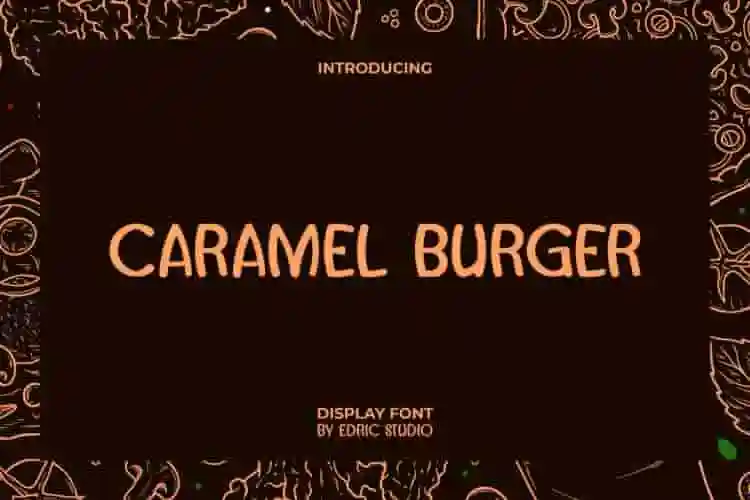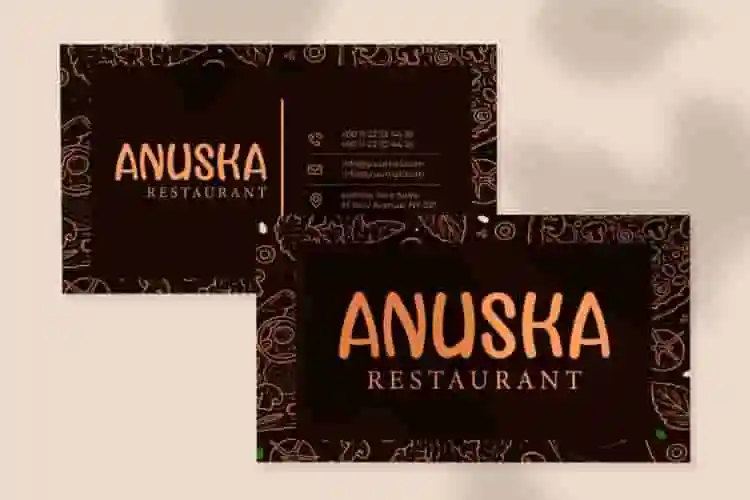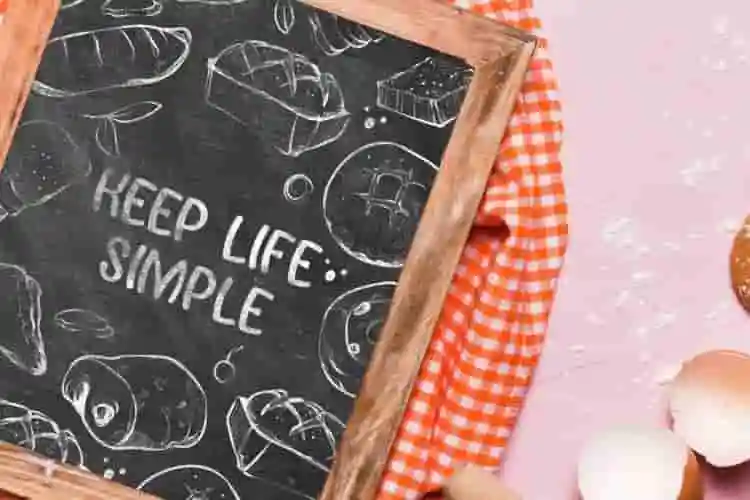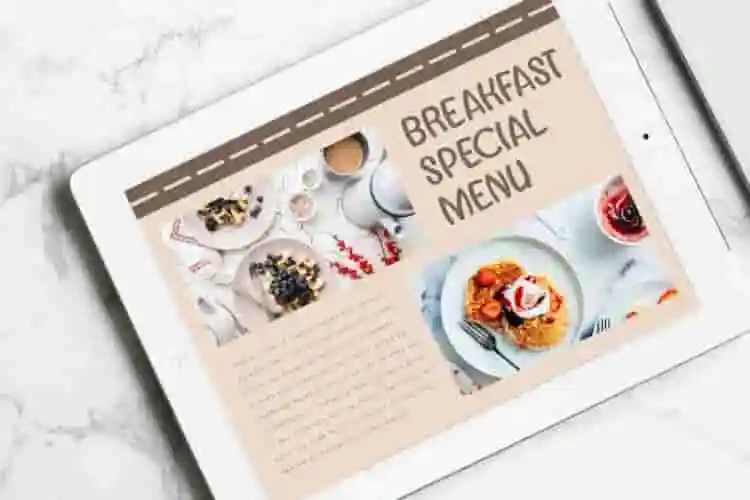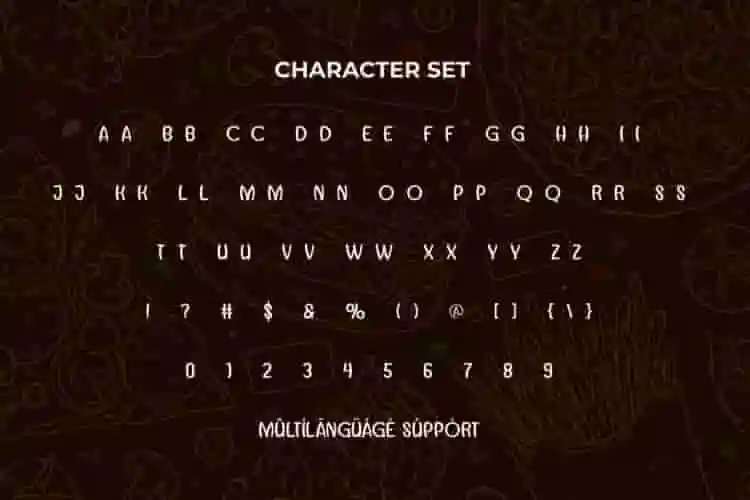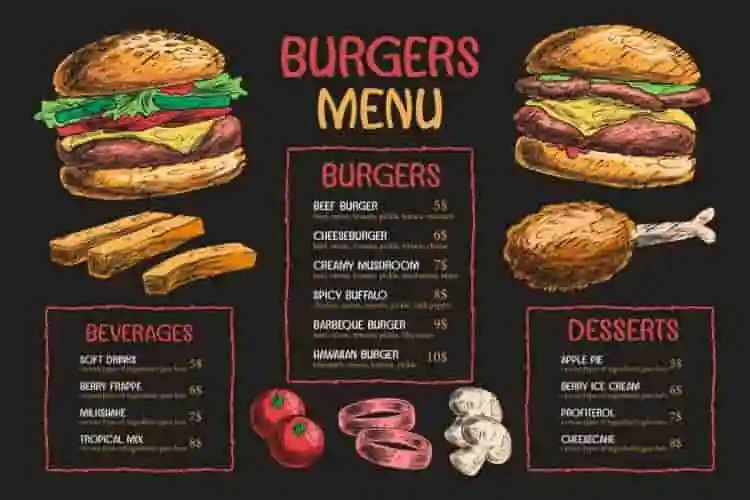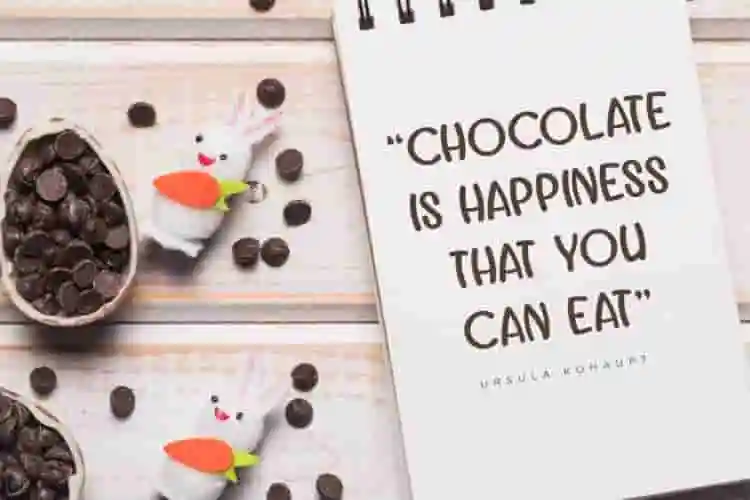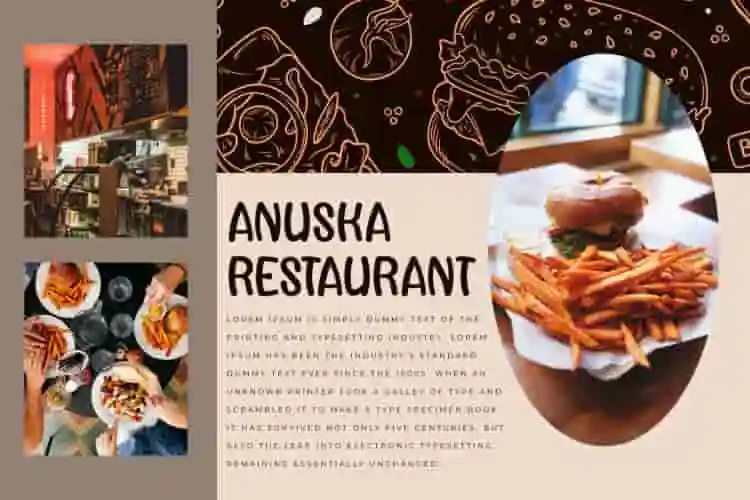
Caramel Burger Font is a fancy unique display font inspired from delicious menu. With this unique font, your project will have a special style, you can also get a clean and simple design appearance when using it. It will be suitable for any business, such as accessories, advertising, cafe, entertainment, event organizer, fashion, kids stuff, marketing material, photography, printing, publishing, restaurant, writer, and many more!
Caramel Burger Font comes with full set of ALL CAPS for Uppercase and Lowercase Basic Characters, Number, a large range of Punctuation, and Symbol. It has sophisticated characters set, perfectly managed with well spaced and kerning. Caramel Burger Font will be able to complement for any design (with extended license) including: brand image, cover, custom design, label, menu board, merchandise, packaging design, poster, quote, screen print, signage, stationery, sticker, title, website page, etc.
Say hello to Caramel Burger Display Font — a fun, chunky, and mouth-watering display typeface that brings flavor and joy to your designs. Inspired by the juicy layers of a big burger and the sweet swirl of caramel, this font is made for visuals that are bold, playful, and full of personality.
With its rounded corners, thick strokes, and delicious charm, Caramel Burger is perfect for food branding, restaurant menus, packaging, posters, and anything that needs to stand out in a fun, approachable way.
This display font is an all-caps typeface that’s easy to read and even easier to love. It gives your message a warm, friendly tone while still staying bold enough to steal the spotlight.
- Playful Display Typeface
- All-Caps Font